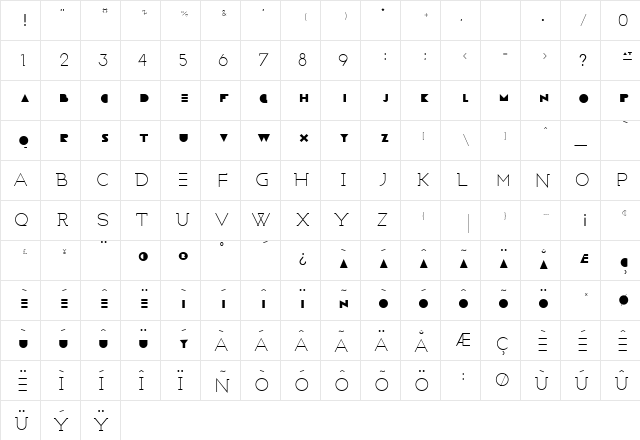
Wicked Thin
| Designer | emile byeongsu kim |
Design Context for Wicked Typeface
Wicked is a composed and adaptable typeface that performs quietly and consistently across a wide range of design contexts. The delicate stroke weight brings airiness and refinement to layouts.